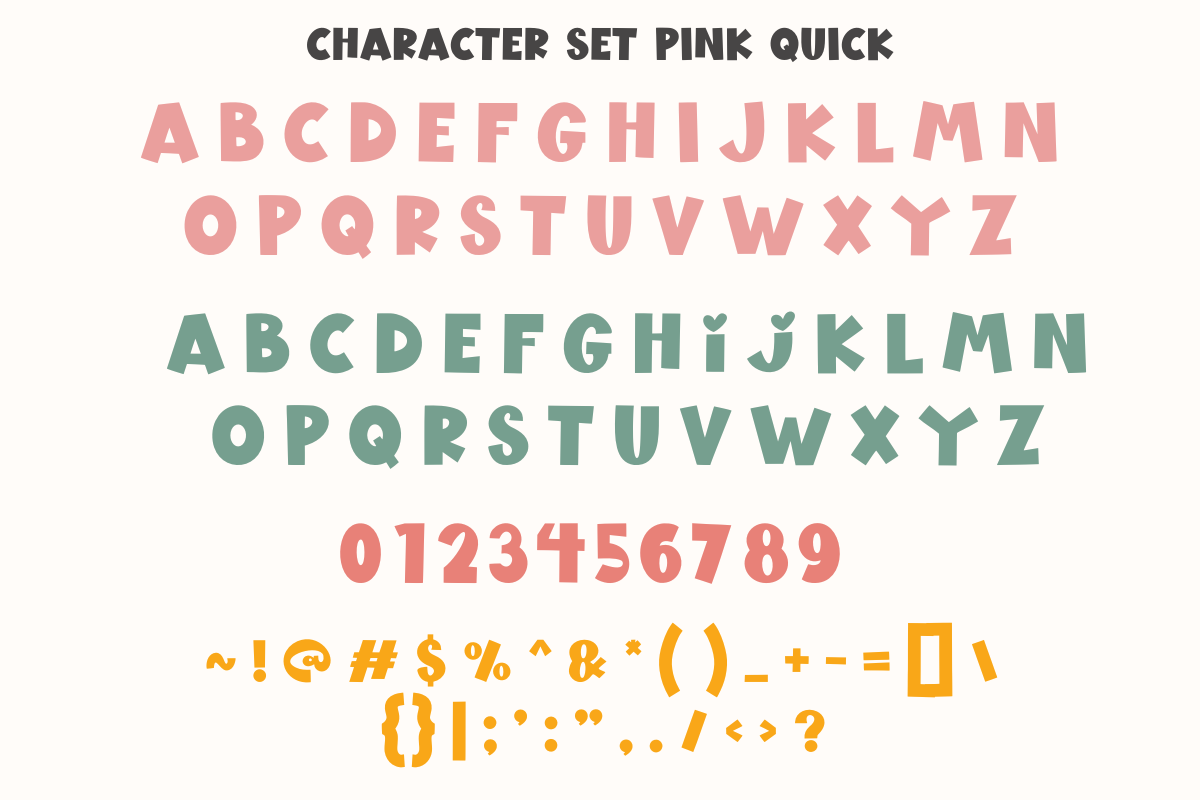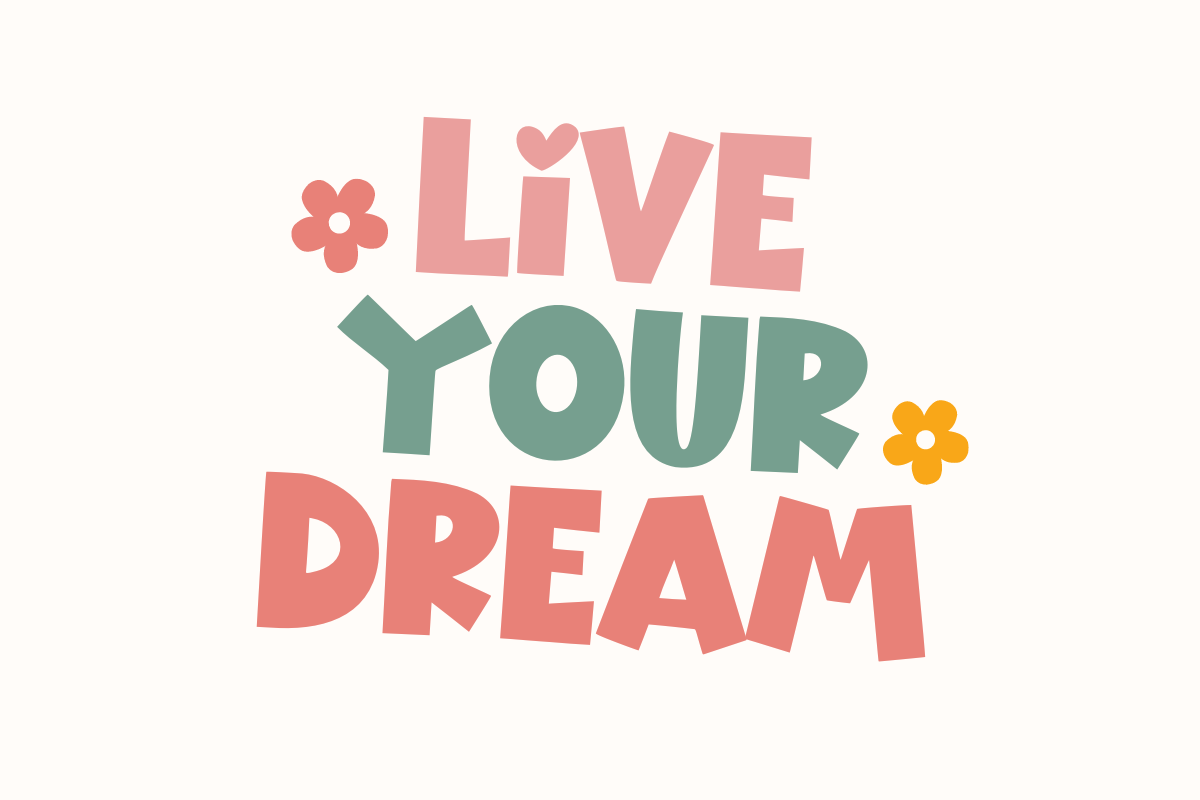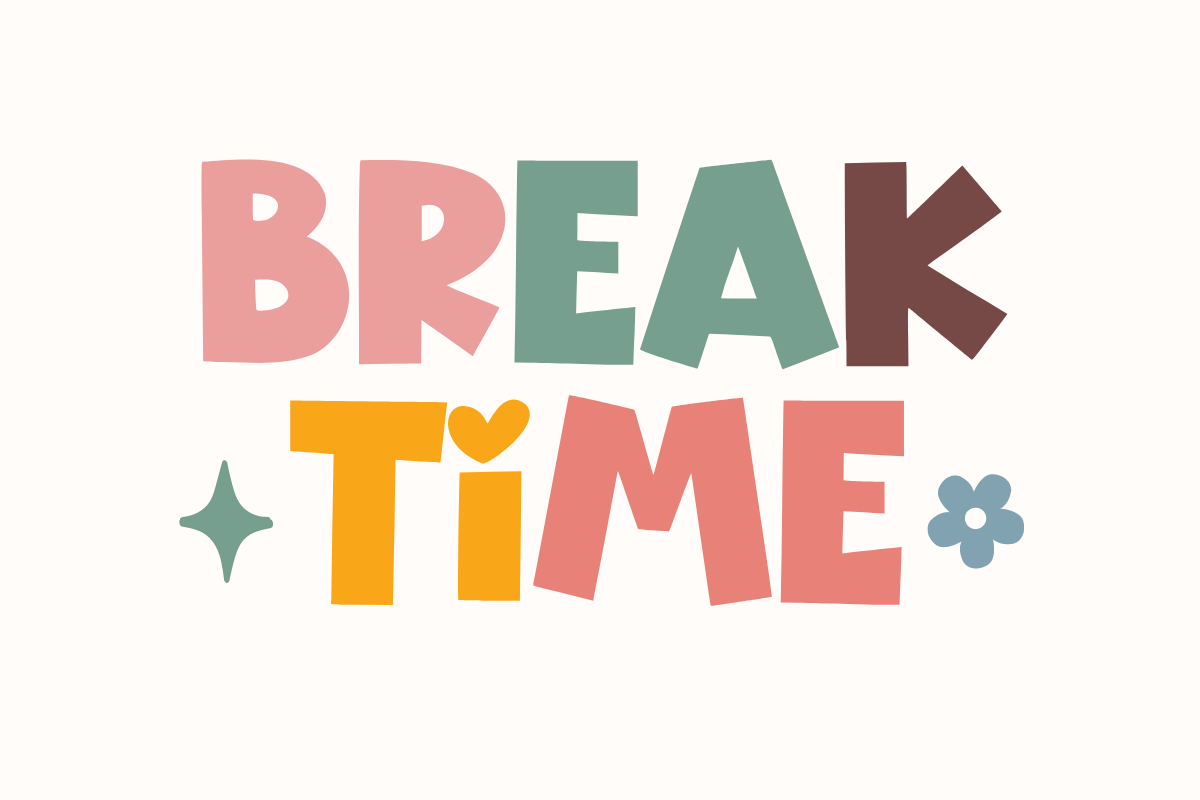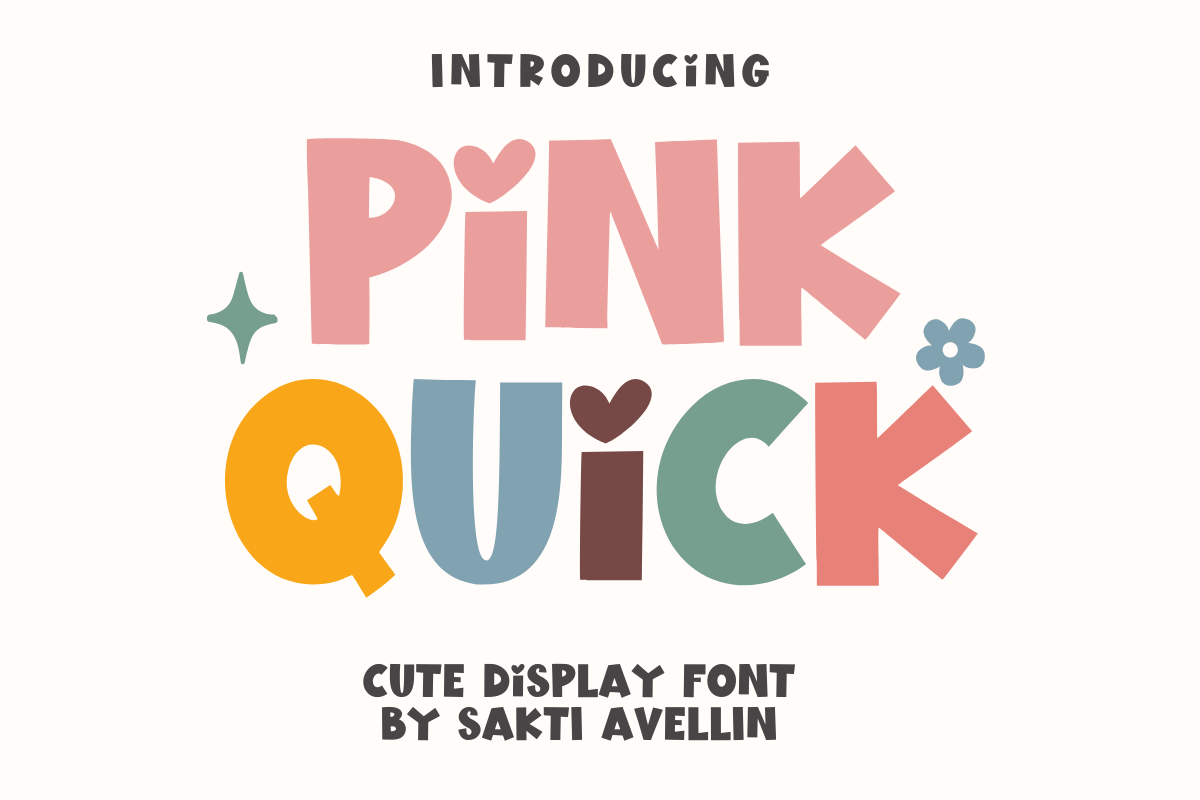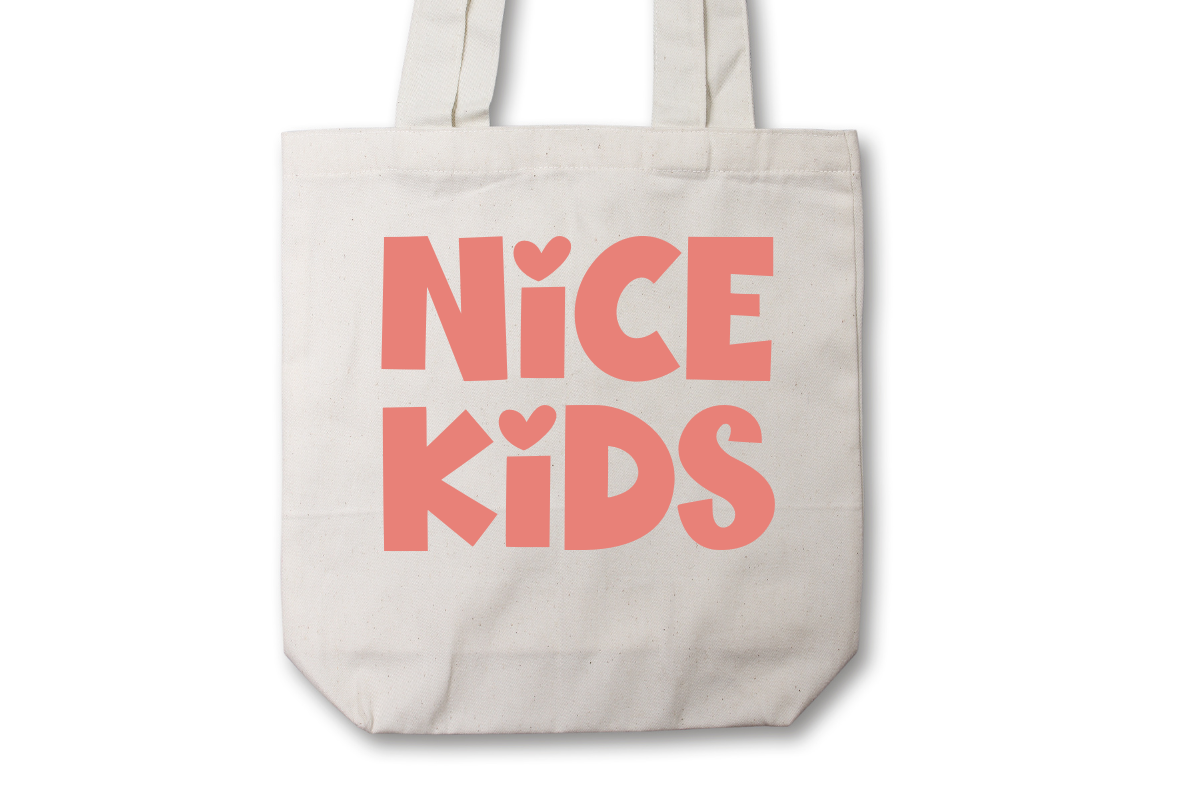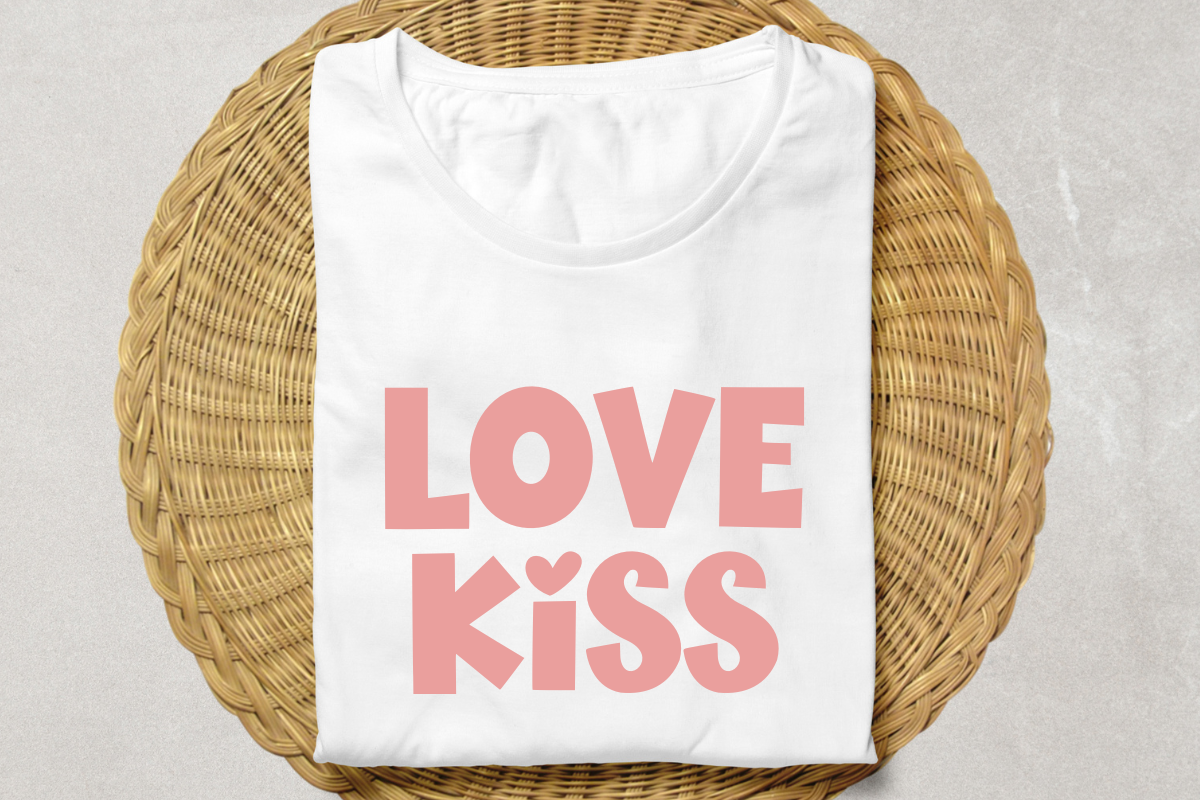
Pink Quick - Cute Display Font
Pink Quick is a vibrant, retro-inspired, and incredibly cute display font that captures a groovy, playful essence. This chunky font is perfect for kids' products, vintage branding, cheerful social media graphics, bold headlines, and any project needing a dose of nostalgic charm. Its thick, rounded letters and delightful stylistic hearts make it a standout display typeface for feminine, modern, and funky designs. Ideal for logo design, t-shirts, packaging, and children's book covers.